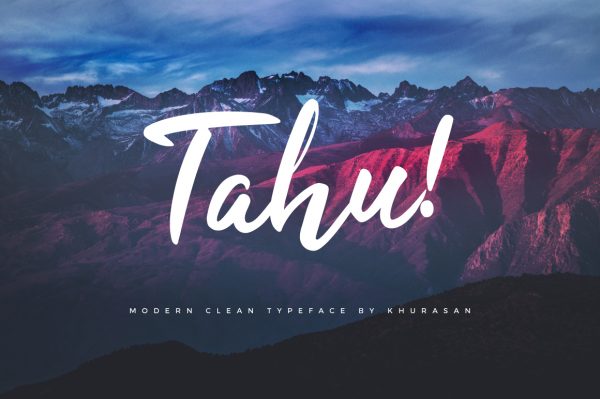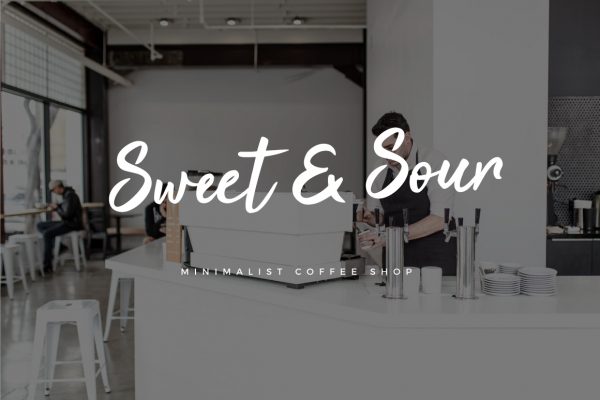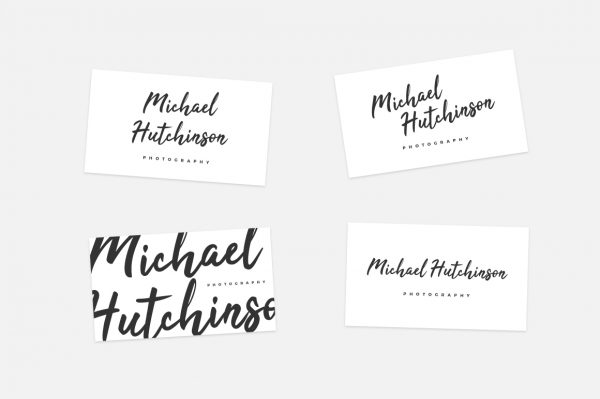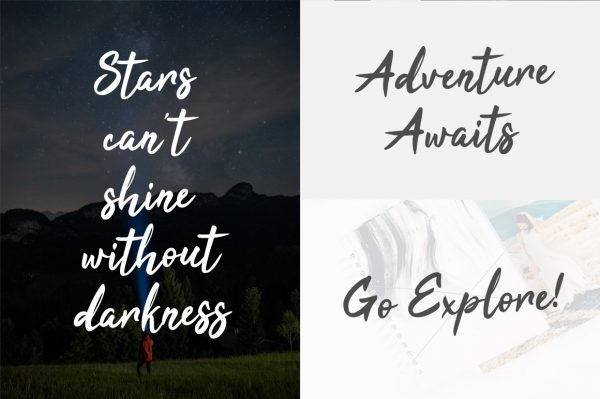
Tahu
Introducing you to a clean and professional modern script font, Tahu! Use it for ads, logos, branding or anything that that you’ll need. This is free for commercial use so feel free to use it to prosper!
• Uppercase & Lowercase Letter
• Numeral & Punctuation
• Multilanguage support